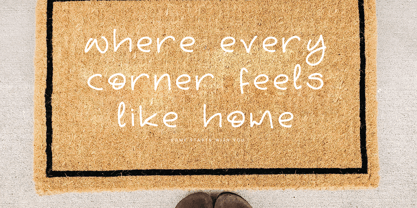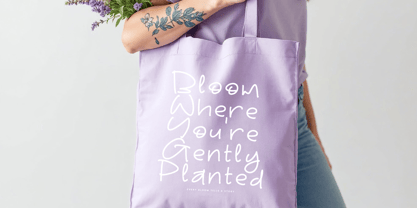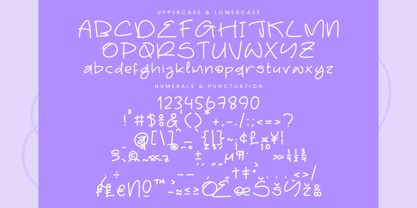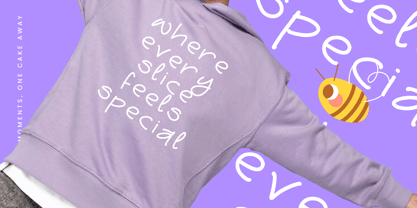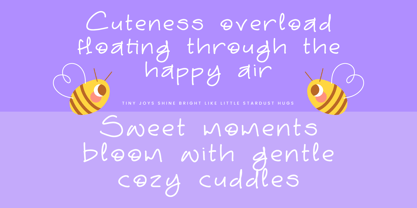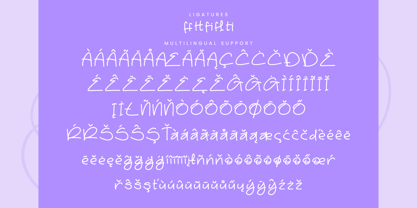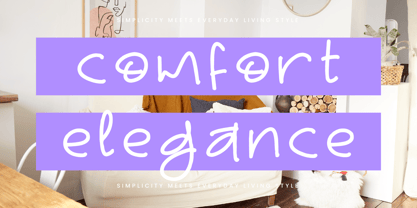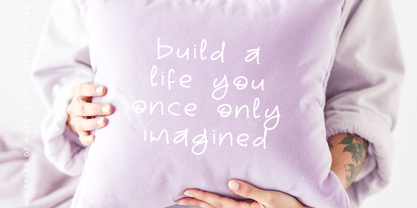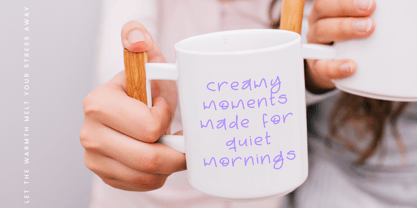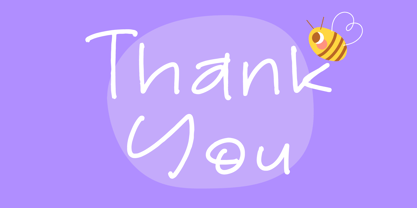
Cosmic Imagined
by Integritype
The Cosmic Imagined Font Family was designed by Dimas Alif Maulana and published by Integritype. Cosmic Imagined contains 2 styles and family package options.
Cosmic Imagined - A Cute Hnadwritten Regular & Italic, from Integritype Studio, perfect for any project like: logos, branding projects, homewares designs, product packaging, mugs, quotes, posters, shopping bags, t-shirts, covers books, business cards, invitation cards, greeting cards, labels, photography, watermarks, special events and all your other luxury projects that require a premium taste.